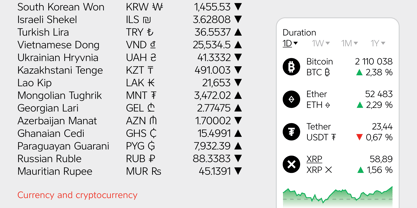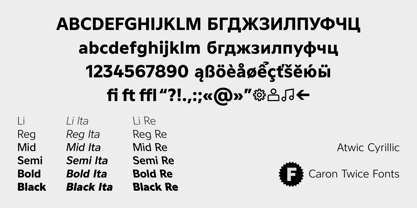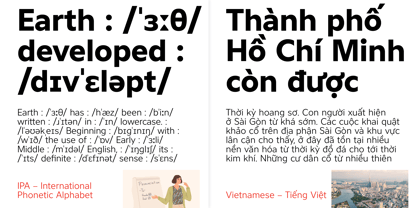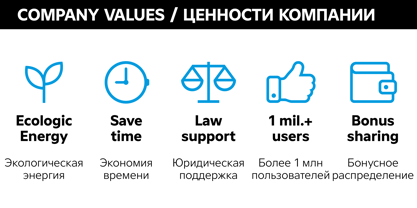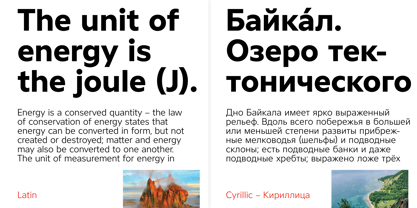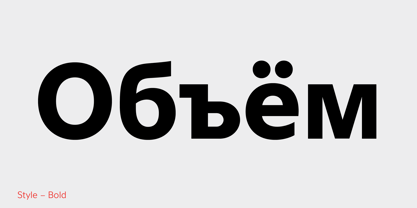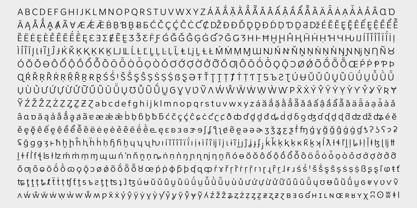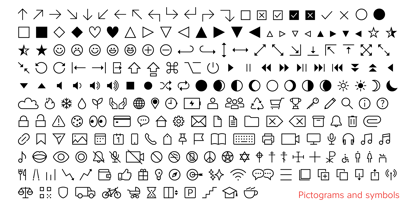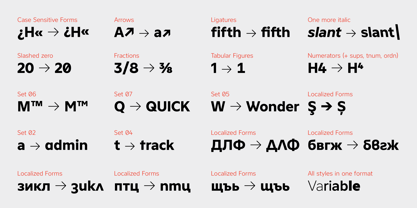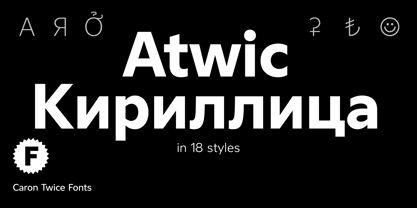
Atwic Cyrillic
by Caron twice
The Atwic Cyrillic Font Family was designed by Martin Činčár and published by Caron twice. Atwic Cyrillic contains 19 styles and family package options. More about this family
Atwic Cyrillic is a clean, simple sans serif typeface whose character aligns with Frutiger, Gill Sans, and Segoe. Today, the sans serif is a modern staple and arguably the defining visual language of contemporary text communication. Containing more than 2,000 characters, Atwic Cyrillic supports two writing systems: Latin and Cyrillic. It also covers Vietnamese, Pan-African Latin, the International Phonetic Alphabet (IPA), Bulgarian Cyrillic, national currency and cryptocurrency symbols, and pictograms (icons). Atwic Cyrillic is well suited for neutral, universal use across both print and digital media. It performs reliably in posters, headlines, brand identities, websites, mobile apps, and wayfinding systems. For continuous text, we recommend the Regular and Bold styles; the high x-height and open endstrokes ensure good readability at smaller point sizes and when viewed from a distance. For larger point sizes, such as in posters and headlines, we recommend the Light and Black styles. Atwic Cyrillic includes a range of style alternatives. Italics and Reverse Italics. A full phonetic alphabet, used in dictionaries to transcribe pronunciation. These features are complemented by a set of pictograms that support information navigation and can be used in website interfaces, chats, music and video players, wayfinding systems in buildings, and even as expressions of a brand’s values.